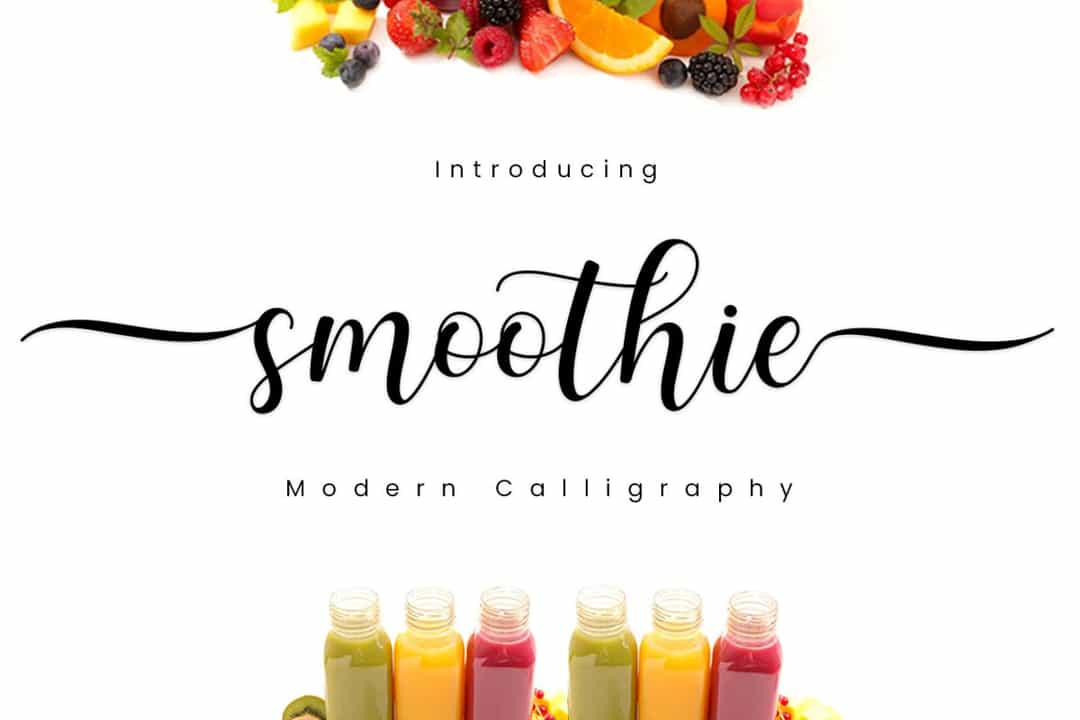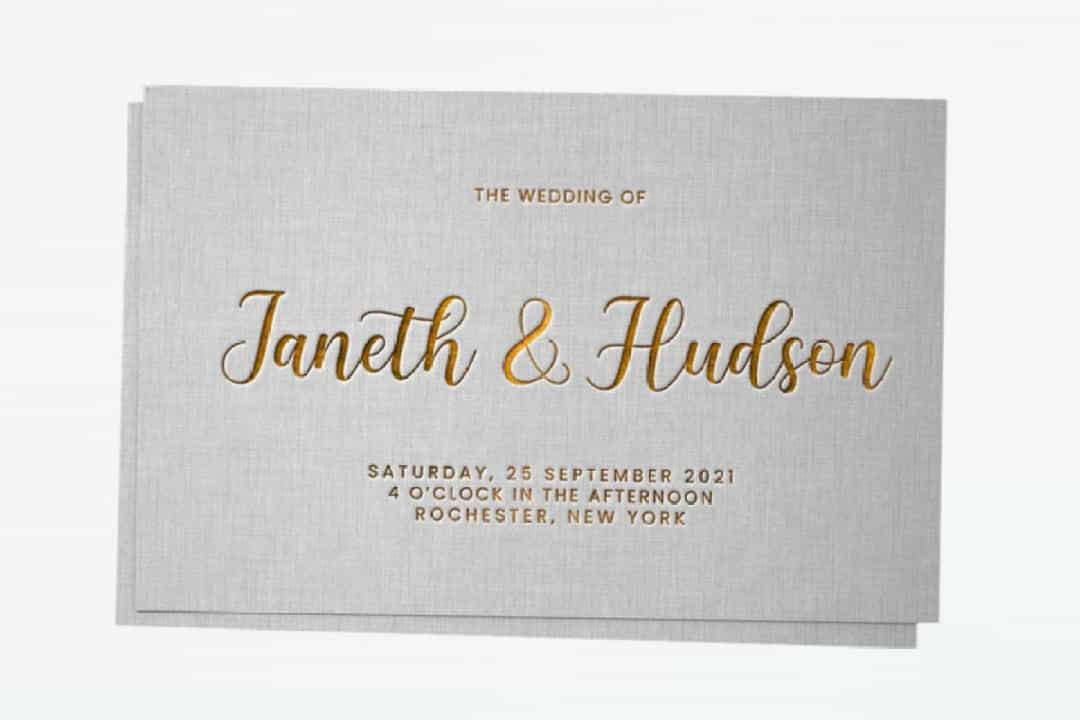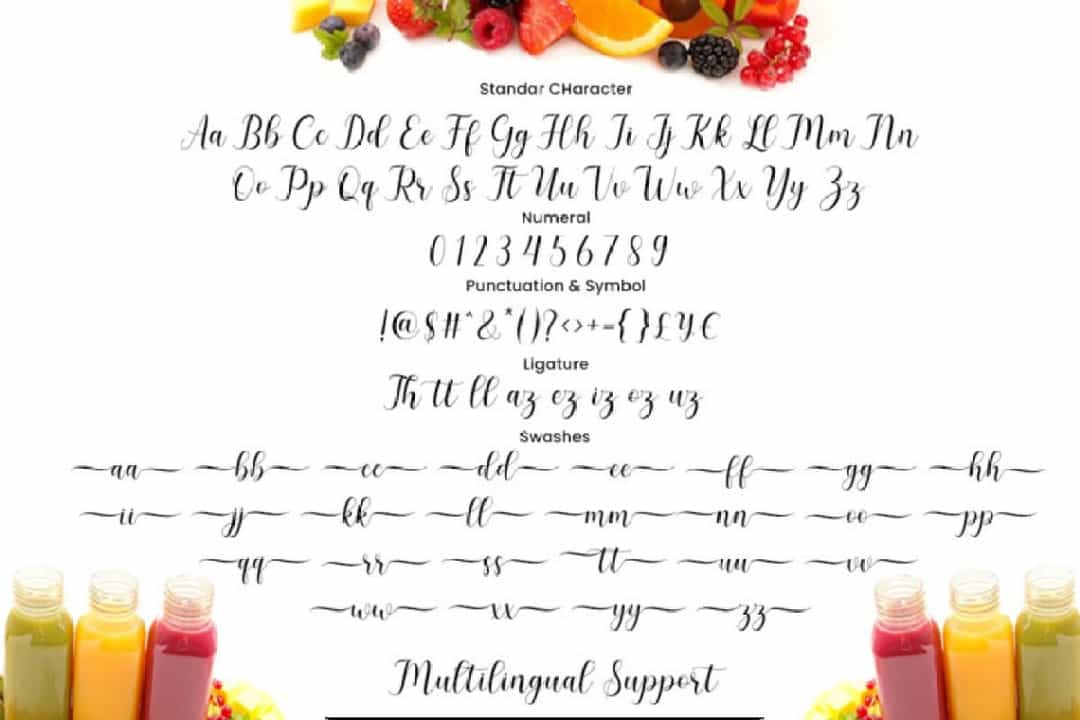
Smoothie is a wonderfully elegant and very decorative script font. Suitable for wedding invitations, thank you cards, greeting cards, quotes, and business cards, logos, and designs that require the touch of handwriting, it also goes well with greeting card designs and greeting card sayings.